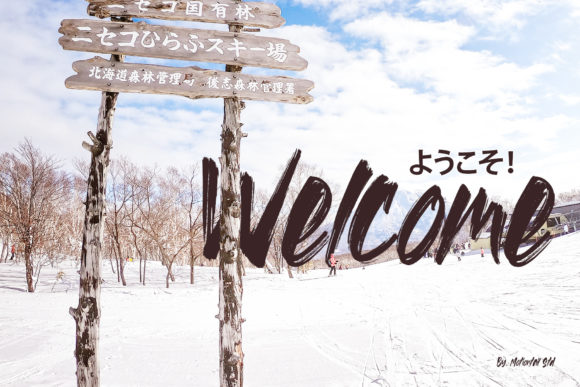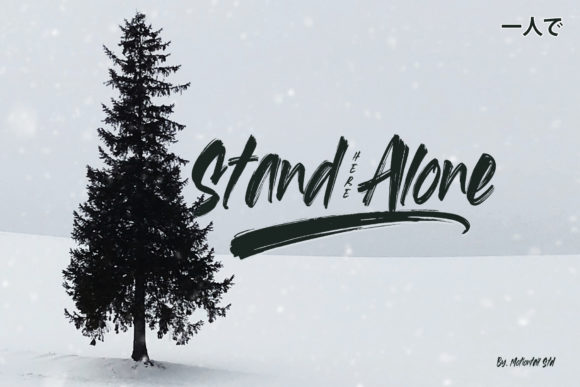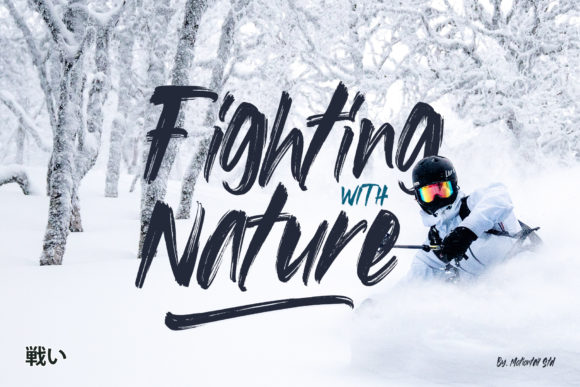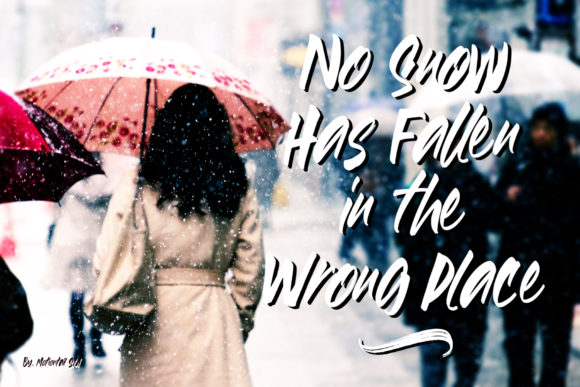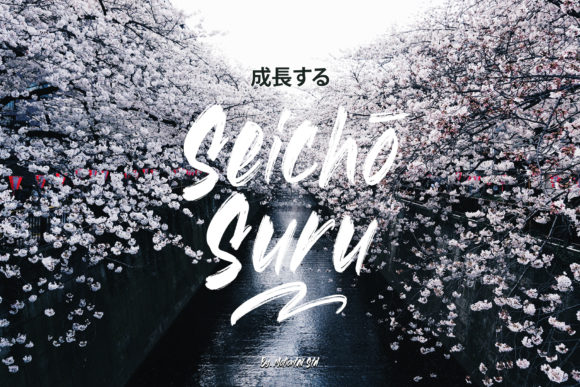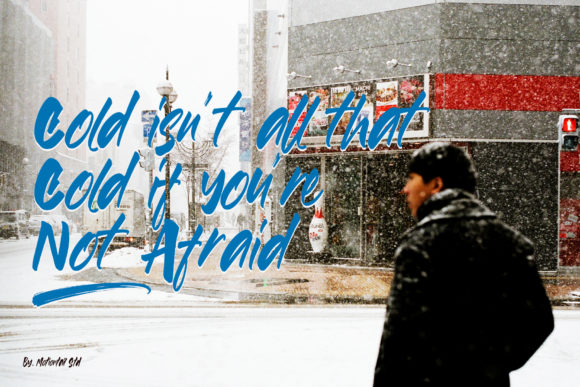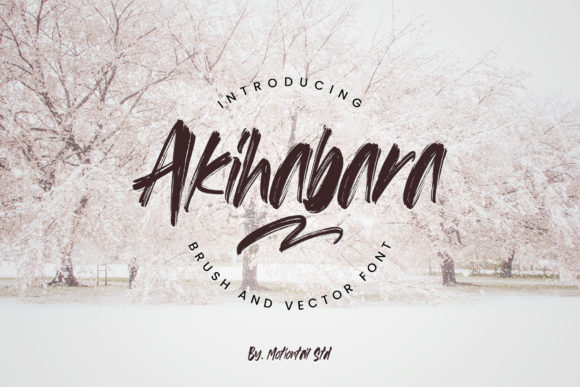
Akihabara Font: Elevate Your Designs with a Bold and Dynamic Display Font
In the world of design, typography plays a crucial role in conveying messages, expressing creativity, and capturing the audience’s attention. When it comes to creating stunning headlines and logotypes, the right font can make all the difference. This is where Akihabara Font comes in – a bold display font designed to add a stylish touch to your projects. In this article, we’ll dive into the features, benefits, and uses of Akihabara Font, and explore how it can elevate your designs to the next level.
Akihabara Font: A Bold and Confident Display Font
Akihabara Font is a carefully crafted display font that exudes strength, confidence, and dynamism. Its bold and sturdy design makes it perfect for headlines, logotypes, and any project that requires a striking visual impact. The font’s unique character and stylish touch can instantly add a professional and polished look to your designs, setting them apart from the rest.
Key Features of Akihabara Font
- Bold and Dynamic Design: Akihabara Font boasts a bold and dynamic design that commands attention and makes a lasting impression.
- Strong and Confident: The font’s sturdy and confident design conveys a sense of authority and professionalism, perfect for headlines and logotypes.
- Unique Character: Akihabara Font’s distinctive style adds a touch of personality to your designs, making them stand out from the crowd.
- High Versatility: The font is suitable for a wide range of design projects, from posters and flyers to logos and branding materials.
Benefits of Using Akihabara Font
So, why choose Akihabara Font for your design projects? Here are just a few benefits of using this exceptional display font:
- Instant Professionalism: Akihabara Font’s bold and confident design instantly adds a professional touch to your projects, making them look polished and refined.
- Improved Readability: The font’s clear and sturdy design ensures excellent readability, even at large sizes, making it perfect for headlines and titles.
- Enhanced Creativity: Akihabara Font’s unique character and stylish touch can inspire creativity and help you develop innovative design solutions.
- Time-Saving: With Akihabara Font, you can quickly and easily create stunning headlines and logotypes without spending hours designing from scratch.
Design Applications for Akihabara Font
Akihabara Font is an incredibly versatile display font that can be used in a wide range of design applications, including:
- Posters and Flyers: Create eye-catching posters and flyers with bold and dynamic headlines that grab attention.
- Logos and Branding: Use Akihabara Font to develop unique and memorable logos that reflect your brand’s personality and values.
- Signage and Displays: The font’s excellent readability and bold design make it perfect for signage and display applications.
- Digital Media: Akihabara Font can also be used in digital media, such as video titles, social media graphics, and website headers.
In conclusion, Akihabara Font is a bold and dynamic display font that can elevate your designs to new heights. With its strong and confident design, unique character, and high versatility, this font is perfect for designers and crafters looking to add a stylish touch to their projects. Whether you’re working on posters, logos, signage, or digital media, Akihabara Font is an excellent choice for creating stunning headlines and logotypes that capture attention and make a lasting impression.